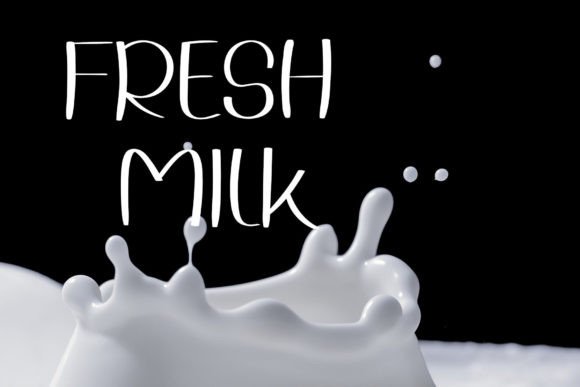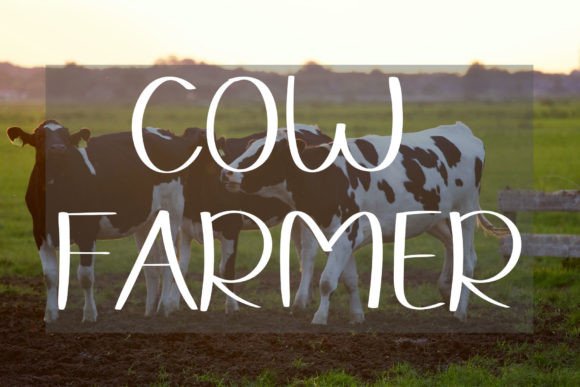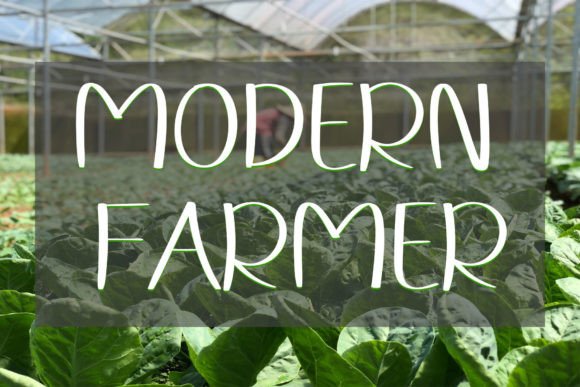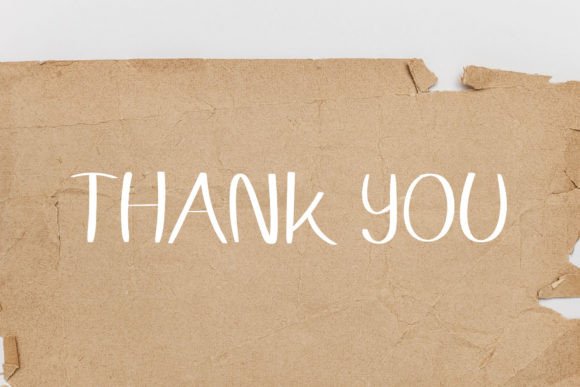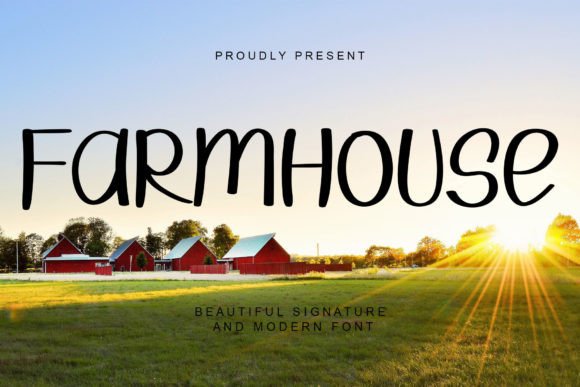
Discover the Charm of Farmhouse Font: A Modern Display Font for Every Occasion
Are you a designer, crafter, or DIY enthusiast looking for a font that can elevate your projects to the next level? Look no further than Farmhouse Font, a cool and modern display font that’s perfect for a wide range of applications. In this article, we’ll explore the features and benefits of Farmhouse Font, and show you how it can become your go-to font for all your creative endeavors.
Farmhouse Font is a stylish and versatile display font that’s designed to make a statement. With its clean lines, rustic charm, and modern twist, this font is perfect for anyone who wants to add a touch of elegance and sophistication to their projects. Whether you’re creating crafts, digital designs, presentations, or greeting cards, Farmhouse Font is the perfect choice.
- Unique and Modern Design: Farmhouse Font boasts a unique and modern design that’s sure to grab attention. Its clean lines and rustic charm make it perfect for a wide range of projects.
- Highly Versatile: This font is incredibly versatile and can be used for a variety of applications, from crafts and digital design to presentations and greeting cards.
- Easily Readable: Despite its stylish design, Farmhouse Font is easily readable, making it perfect for both digital and print projects.
Uses of Farmhouse Font
Farmhouse Font is an incredibly versatile font that can be used for a wide range of projects, including:
- Crafts: Use Farmhouse Font to add a personal touch to your craft projects, such as scrapbooking, card making, and DIY home decor.
- Digital Design: Farmhouse Font is perfect for digital designers who want to create stunning graphics, social media posts, and website headers.
- Presentations: Add a touch of elegance and sophistication to your presentations with Farmhouse Font.
- Greeting Cards: Use Farmhouse Font to create beautiful and unique greeting cards for special occasions.
Benefits of Using Farmhouse Font
So why choose Farmhouse Font for your projects? Here are just a few benefits of using this amazing font:
- Save Time: With Farmhouse Font, you can create stunning projects in no time. Its easily readable design and versatile style make it perfect for quick and easy projects.
- Stand Out from the Crowd: Farmhouse Font is a unique and modern font that’s sure to grab attention. Use it to stand out from the crowd and make your projects shine.
- Easy to Use: Farmhouse Font is incredibly easy to use, even for those who are new to design and crafting.
Tips and Tricks for Using Farmhouse Font
Here are a few tips and tricks for getting the most out of Farmhouse Font:
- Experiment with Different Sizes and Colors: Farmhouse Font looks great in a variety of sizes and colors. Experiment with different combinations to find the perfect look for your project.
- Pair it with Other Fonts: Farmhouse Font pairs well with other fonts, such as serif and script fonts. Experiment with different pairings to find the perfect combination.
- Use it for Headings and Titles: Farmhouse Font is perfect for headings and titles. Use it to add a touch of elegance and sophistication to your projects.
Farmhouse Font is a cool and modern display font that’s perfect for designers, crafters, and DIY enthusiasts. With its unique and modern design, highly versatile style, and easily readable format, this font is sure to become your go-to font for all your creative endeavors. Whether you’re creating crafts, digital designs, presentations, or greeting cards, Farmhouse Font is the perfect choice. So why wait? Download Farmhouse Font today and start creating stunning projects that will leave a lasting impression!